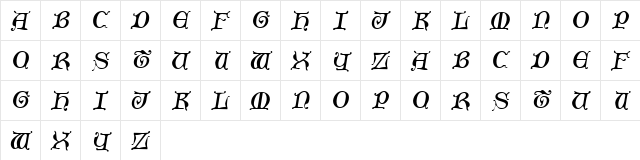
HandcartCaps Oblique Free Font
HandcartCaps Oblique
Style: Oblique
Design Context for HandcartCaps
HandcartCaps flows with the natural rhythm of handwritten lettering, making it ideal for designs that call for warmth and personal expression.
Font Pairing: Combine HandcartCaps with a simple geometric sans for maximum contrast - the tension between flowing curves and clean structure is a classic typographic pairing.
Pro Tip: Use HandcartCaps for short runs of text - names, titles, or taglines. Extended body copy in script faces tires the eye quickly.